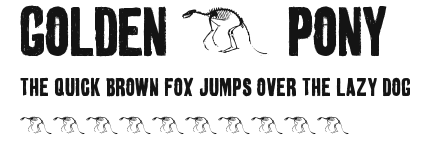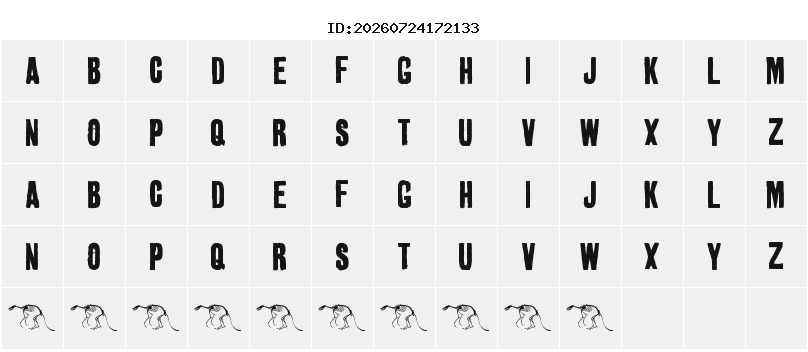
golden 0 pony Preview
• Font Name: golden 0 pony
• Font ID: golden 0 pony:Version 1.00
• Full Font Name: golden 0 pony
• Version: Version 1.00 March 2, 2009, initial release
• PostScript Name: golden0pony
• Character Count: 85
About golden 0 pony.ttf
golden 0 pony.ttf is a modern, elegant sans-serif font designed for ultimate readability and visual harmony. Perfect for branding, headlines, web design, and print materials.